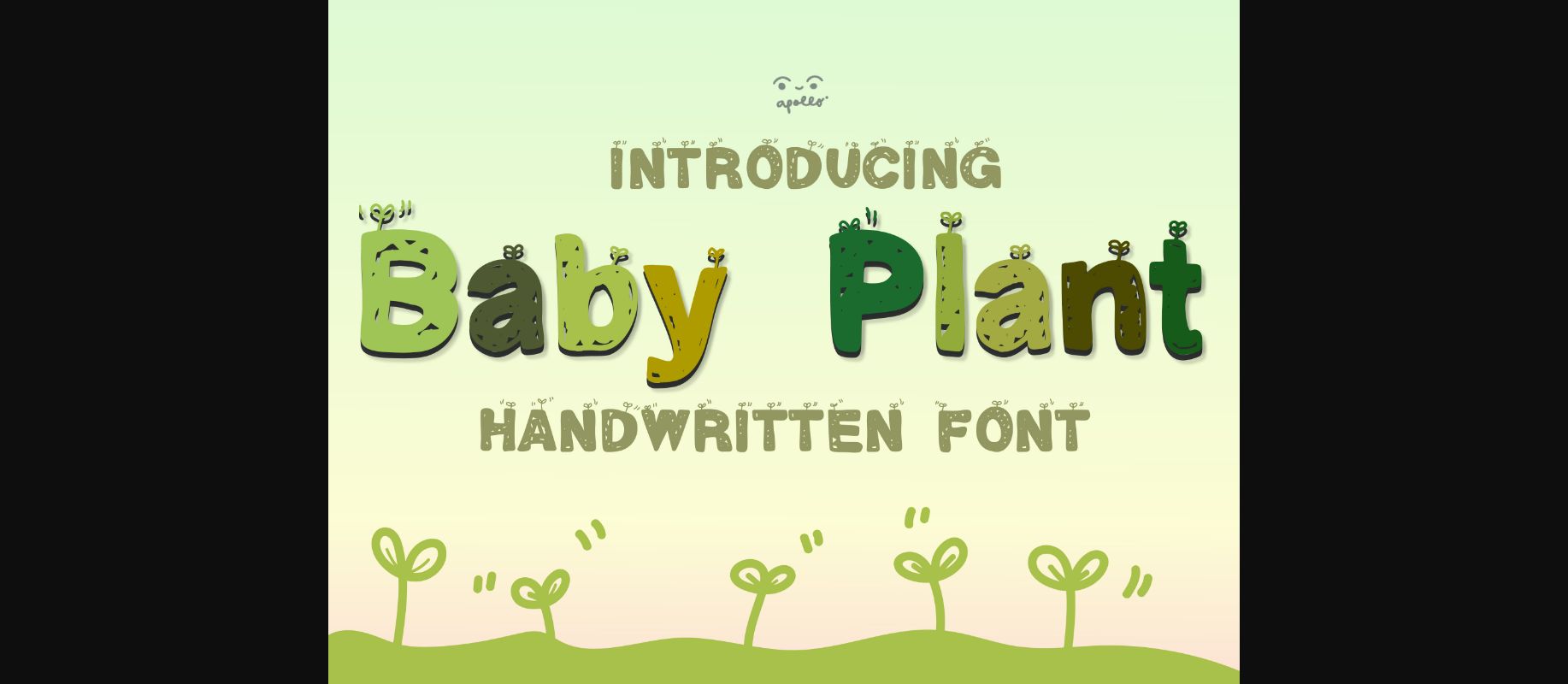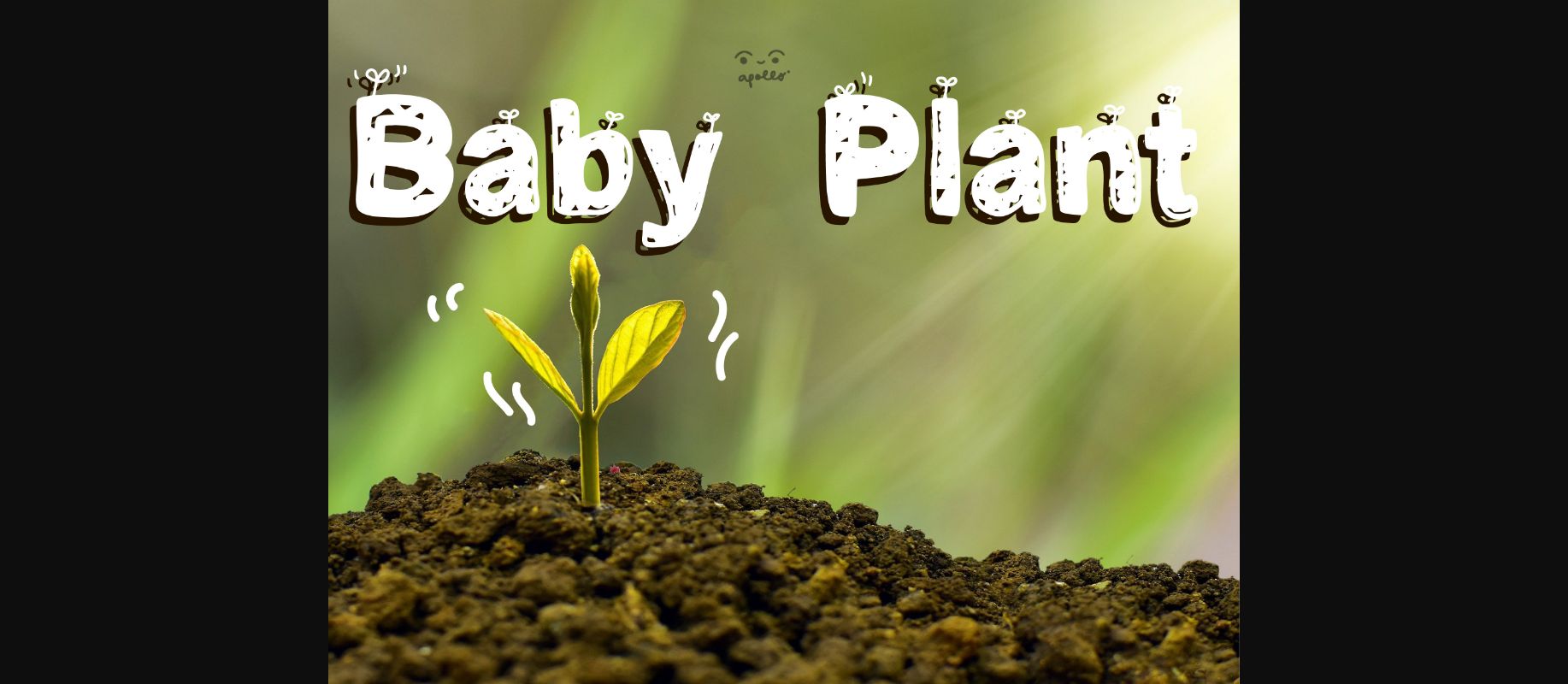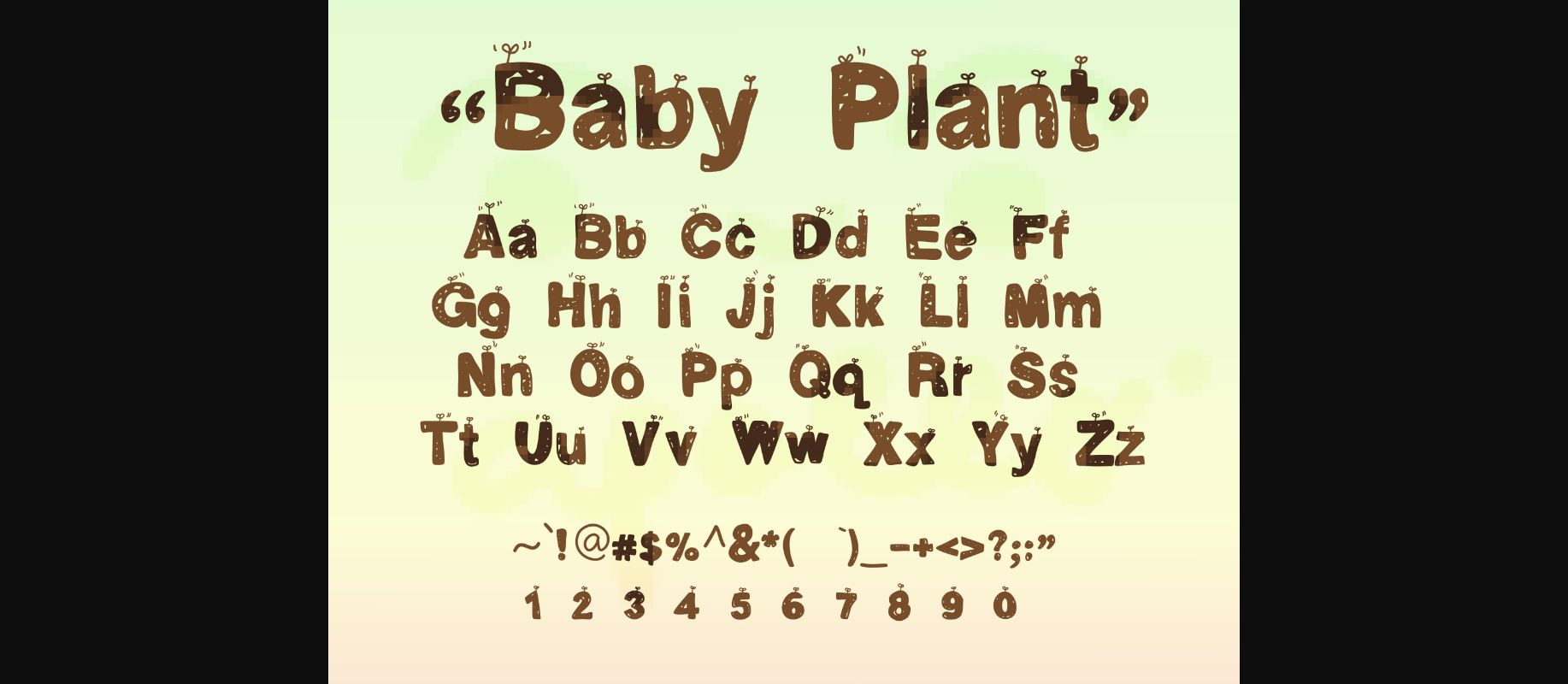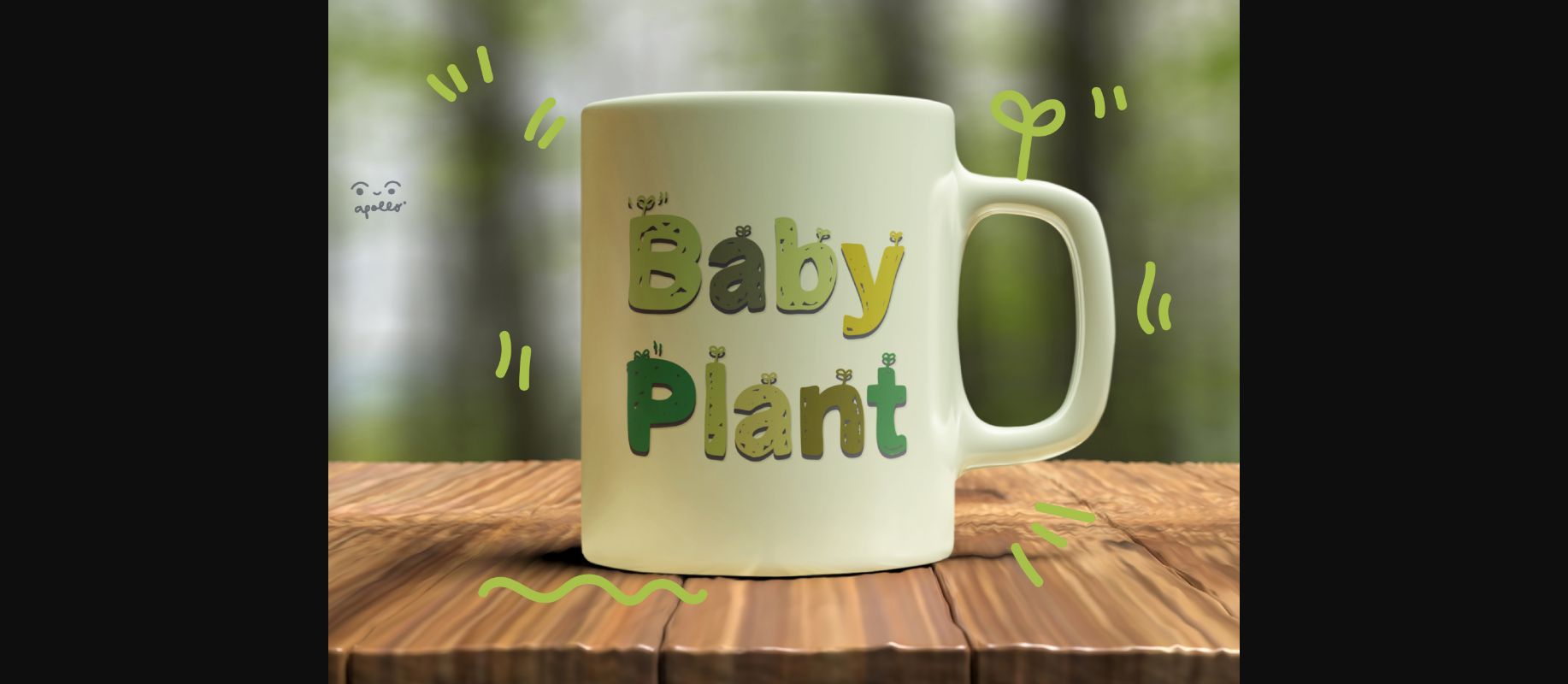
Baby Plant Font
About Baby Plant Font
Baby Plant is a decorative font with a little plant on each character that makes it look cute and lovely on every design. It is perfect for nature-related creations, planting or eco products, birthday cards, baby-related celebrations, and more. It is also great for web design or landing pages.